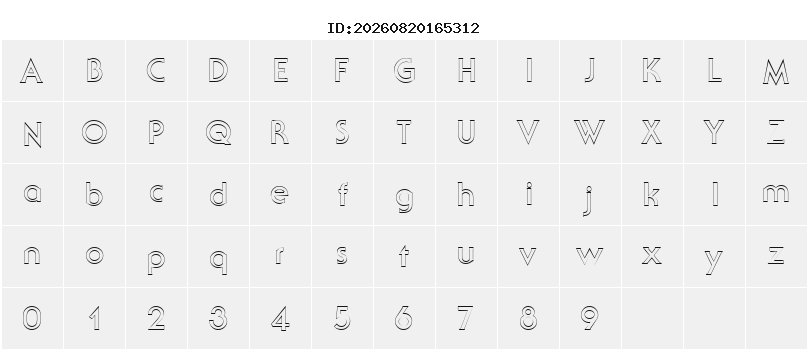
Serif Gothic Bold Outline Preview
• Font Name: Serif Gothic Bold Outline
• Full Font Name: Serif Gothic Bold Outline Regular
About Serif Gothic Bold Outline.ttf
Serif Gothic Bold Outline.ttf is a modern, elegant sans-serif font designed for ultimate readability and visual harmony. Perfect for branding, headlines, web design, and print materials.